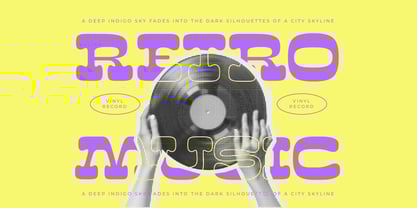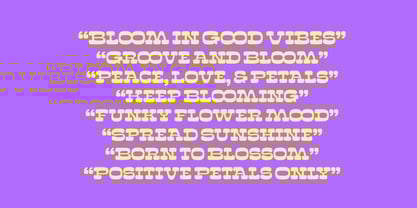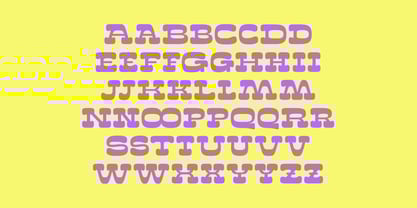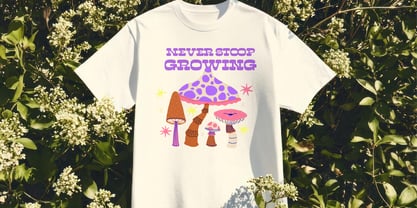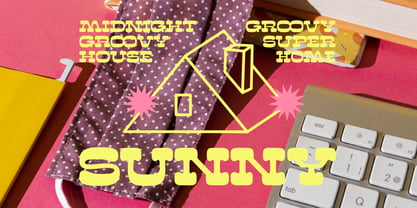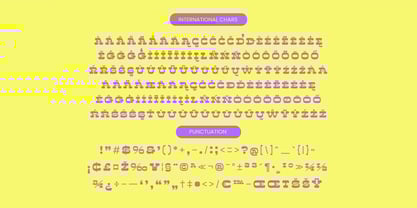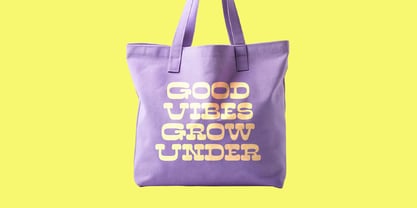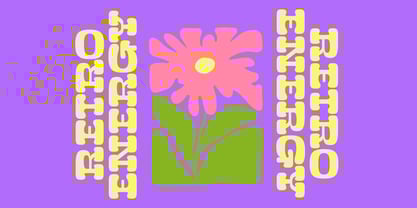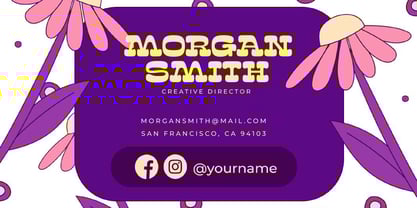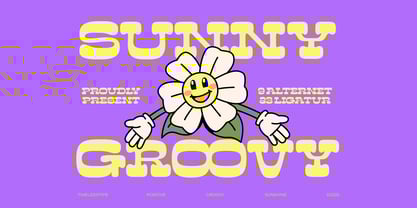
Sunny Groovy
by Timelesstype Studio
The Sunny Groovy Font Family was designed by Heru Utama Putra and published by Timelesstype Studio. Sunny Groovy contains 2 styles and family package options. More about this family
Sunny Groovy is a cheerful retro display font with chunky letterforms, rounded corners, and a playful 70s-inspired personality that instantly adds positivity and fun to any design. Its bubbly shapes and smooth curves make it perfect for children’s projects, merchandise, stickers, social media graphics, branding, posters, packaging, and anything that needs a bright, friendly, and uplifting aesthetic. With alternates and ligatures designed for extra character, Sunny Groovy brings joyful energy and a warm nostalgic charm to every creative layout.